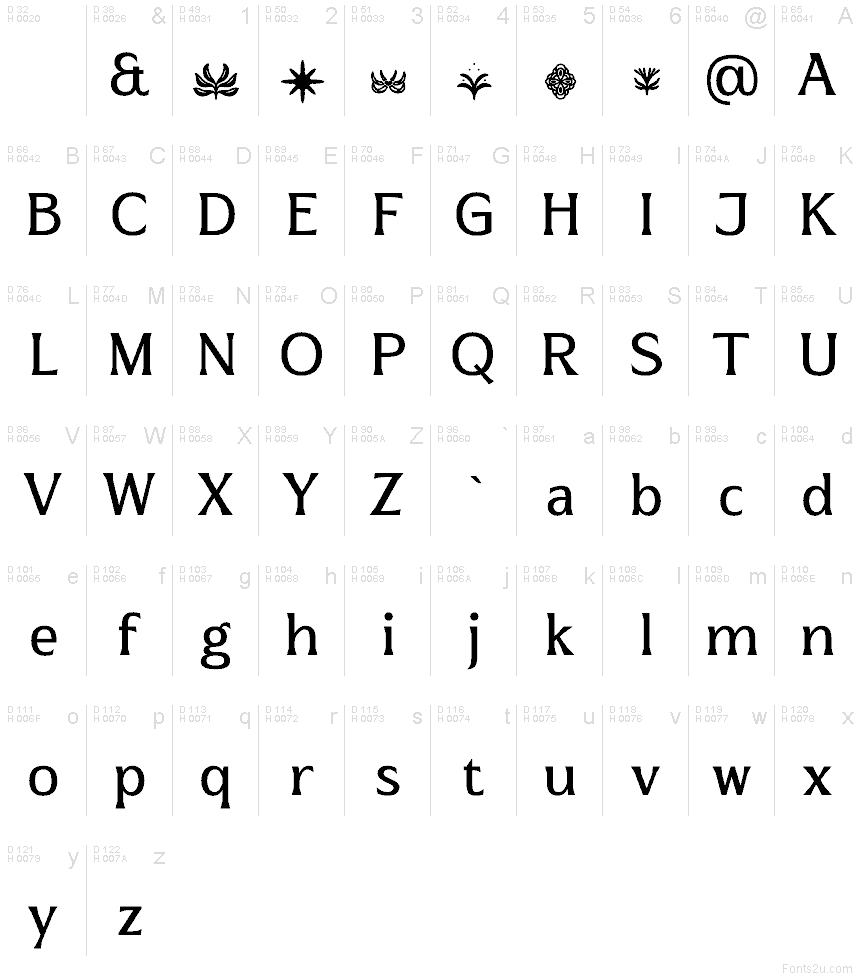
Macala de Club font designed by Hishand Studio is a free serif font that mixes the best of old and new in their distinguished and classic appearance, living up to its timeless name. This elegant font holds just the right amount of sophistication to deliver manorial designs with its refined style.
Use Macala de Club’s abundant letters for exceptional branding projects and logotypes in addition to print media applications which involve flyers, magazines, newspapers, book covers, body texts, stationery designs… Also implement it freely into social media posts and online ads.